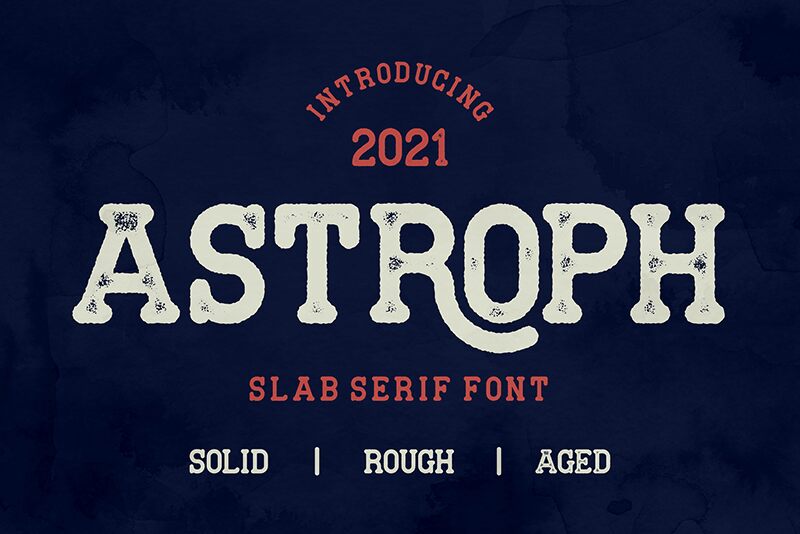
Astroph font designed by Figuree Studio captures the rugged and bold charm of the retro aesthetic for free. Its nostalgic character is defined by the unique blend of geometric and rounded letterforms delivered with uniform consistency. The imperfect appearance of the glyphs is created by an interesting texture mimicking the aesthetic of distressed prints. A short list of defining features is the slab serifs, chiseled corners, and straight terminals showcased in every letterform.
Product branding will earn a textured yet remarkable tagline while magazine covers and posters will have a long-lasting visual impact. Astroph will send a vintage invitation wrapped in a rustic envelope to the party, or spread a perfect message in your website typography. An impressive assortment of many other projects is possible, including badges, business cards, labels, apparel, and more.